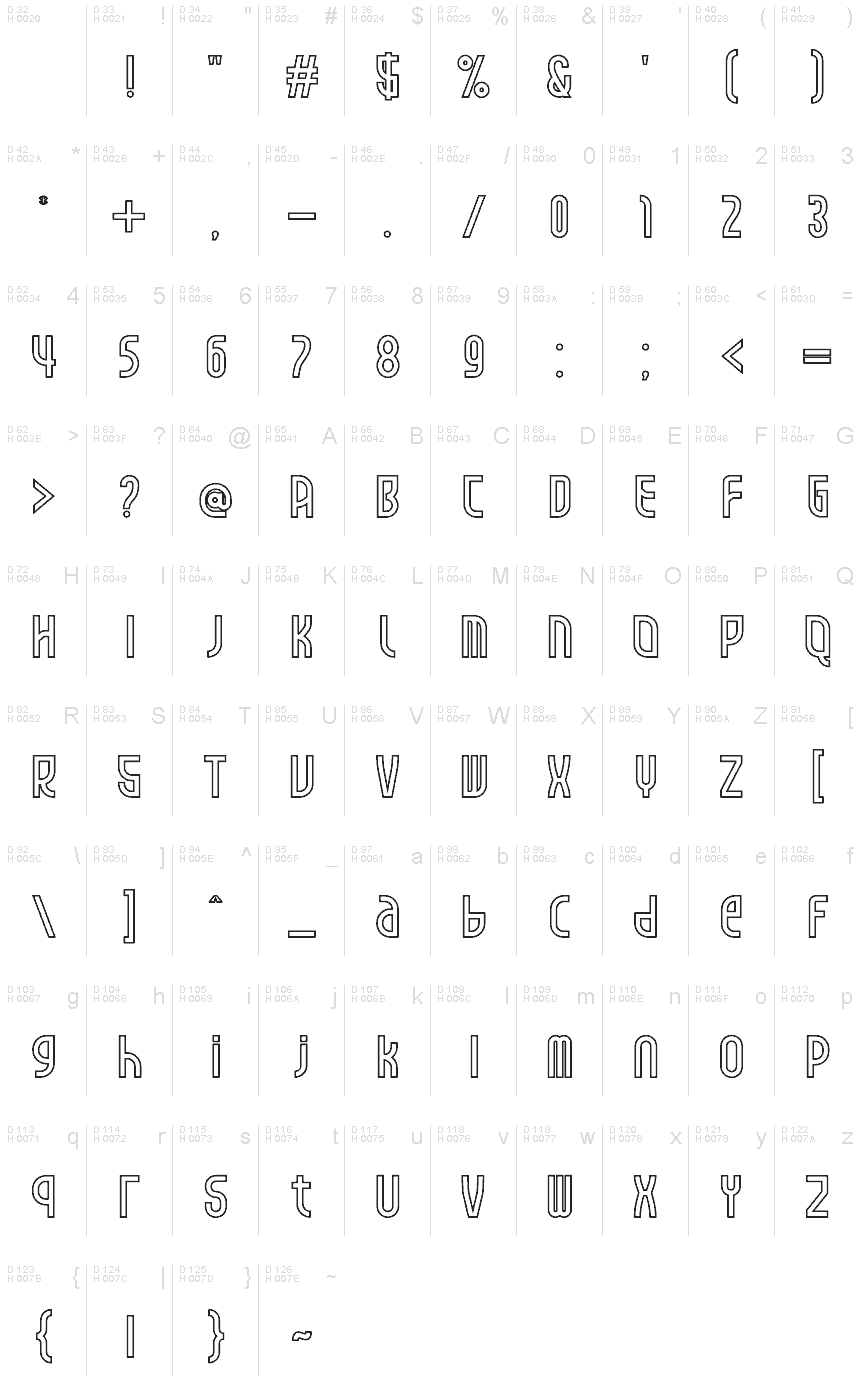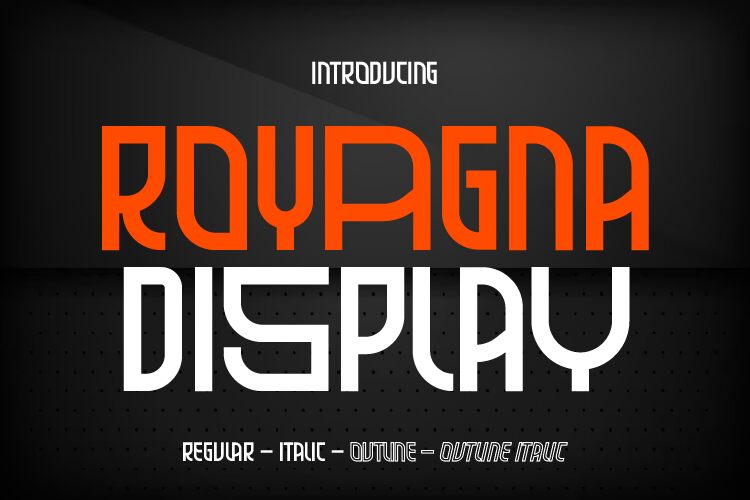
Royagna Outline
Royagna Outline font by Rvandtype is a free geometric and condensed display font. The modern design reveals minimalist features in addition to pronounced futuristic vibes. The font benefits from a carefully created grid which adds harmony and uniqueness.
Use this typeface in your poster drawings which could also be about scientific content, space-relation topics, or abstract arts for example. Advertising could also benefit from Royagna Outline while creating flyers, brochures as well as business cards for both professionals or brands that want to appear modern or trendy. Websites are other great places while visible titles within books can work just as nicely!